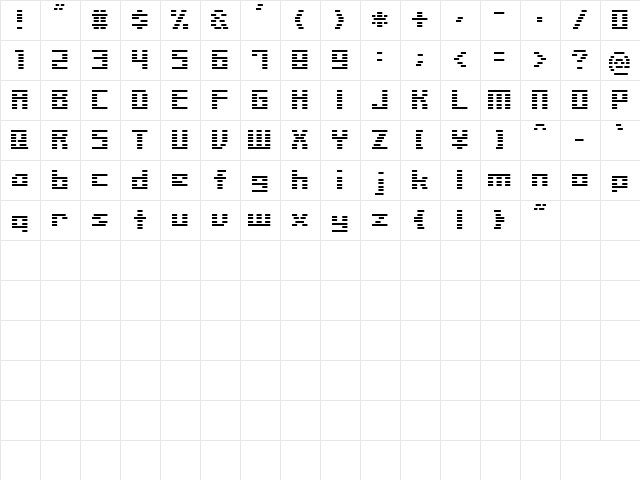
Liner BMP14 Regular
Design Context for Liner BMP14 Typeface
Liner BMP14 takes a measured approach to typography — its balanced proportions and neutral character make it a reliable workhorse for both digital and print work.